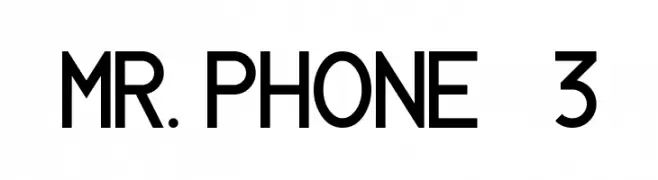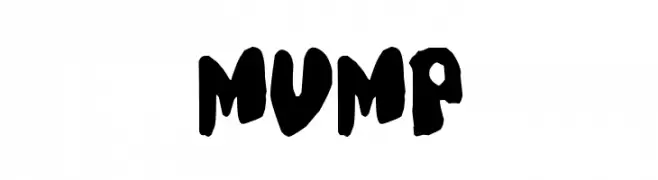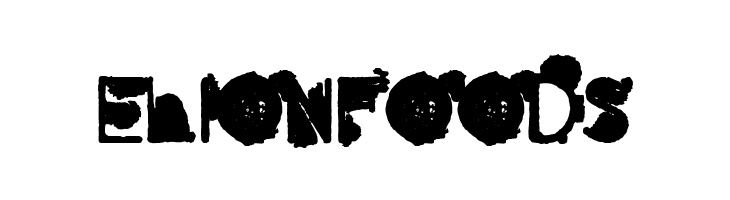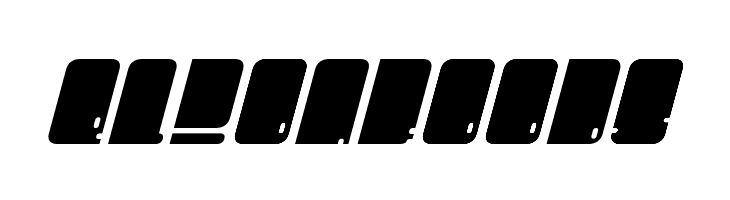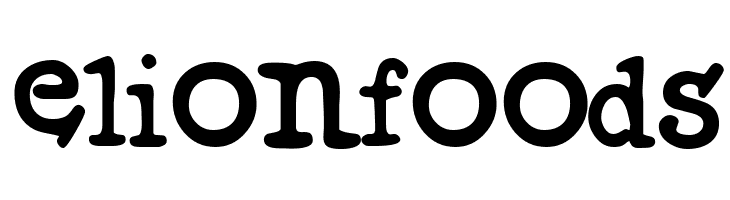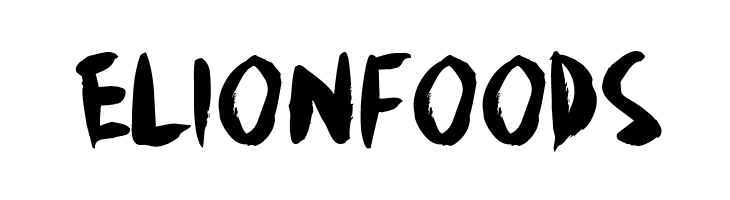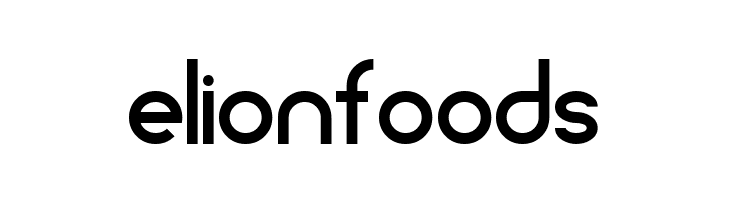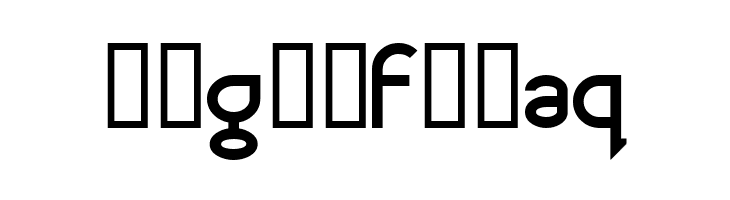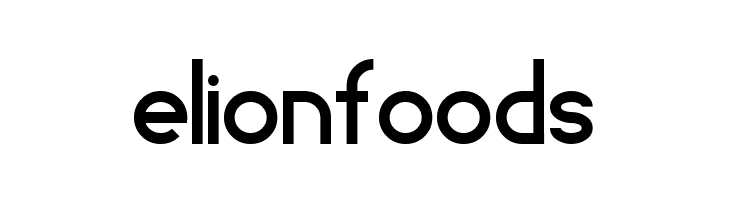
• MR. PHONE 3
( Glyphobet Font Foundry - glyphobet.net/typography/ )
A modern, geometric sans-serif font with consistent stroke width.
• MR. PHONE 4
( Glyphobet Font Foundry - glyphobet.net/typography/ )
A modern, geometric sans-serif font with clean lines and uniform strokes.
• MR. PHONE Alternates
( Glyphobet Font Foundry - glyphobet.net/typography/ )
A modern, geometric font with bold, rounded characters and a compact design.
• Mudshovel
( Fonts by Spork Thug Typography - Josh Wilhelm - www.lifewithouttaffy.com/taffy/blog )
A bold, brush-style font with dynamic and expressive strokes.
• Muffy
( Fonts by Spork Thug Typography - Josh Wilhelm - www.lifewithouttaffy.com/taffy/blog )
A playful and bold font with rounded edges and a whimsical style.
• Mump
( Fonts by Spork Thug Typography - Josh Wilhelm - www.lifewithouttaffy.com/taffy/blog )
A bold, playful, and hand-drawn font with a whimsical style.
• Nobody Loves Me
( Fonts by Spork Thug Typography - Josh Wilhelm - www.lifewithouttaffy.com/taffy/blog )
A bold, expressive handwritten font with a rough, textured style.
• NOFUTUR
• Oh Mega Sigh
( Fonts by Typography in Decay )
A bold, modern font with geometric shapes and a dynamic slant.
• Old Typography
( Fonts by Galdino Otten - galdinootten.com )
A bold, distressed font with a vintage, rugged appearance.